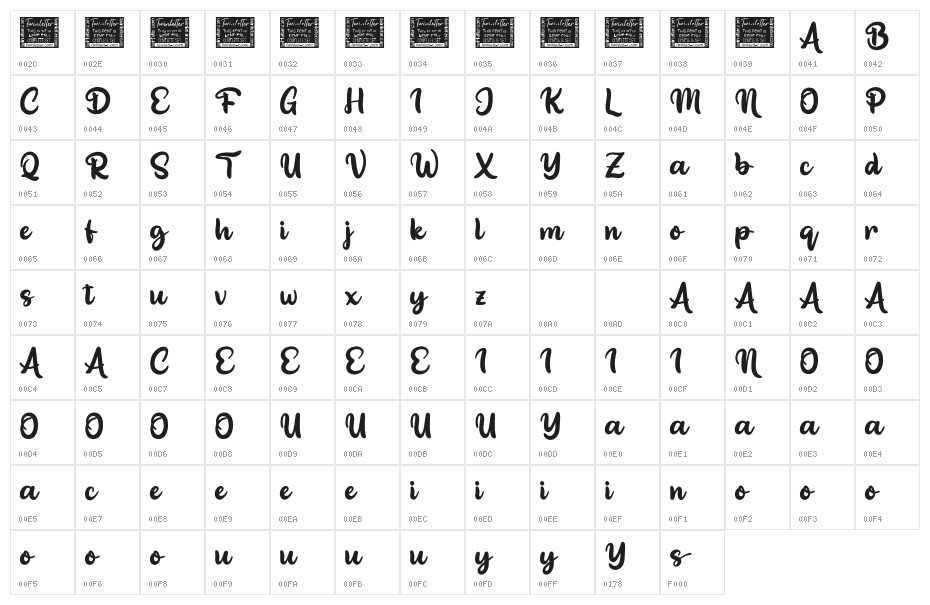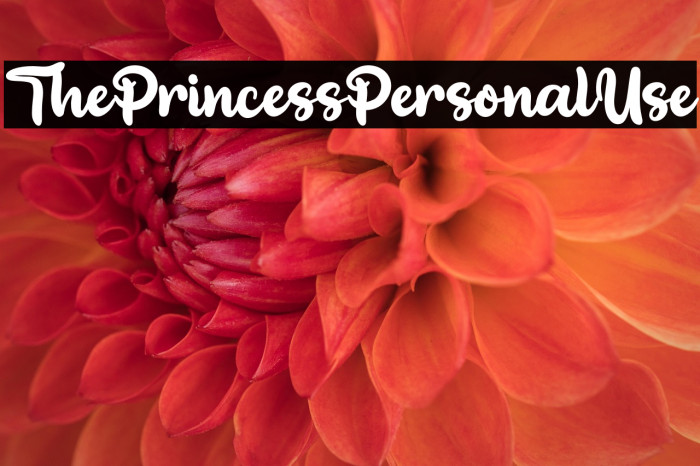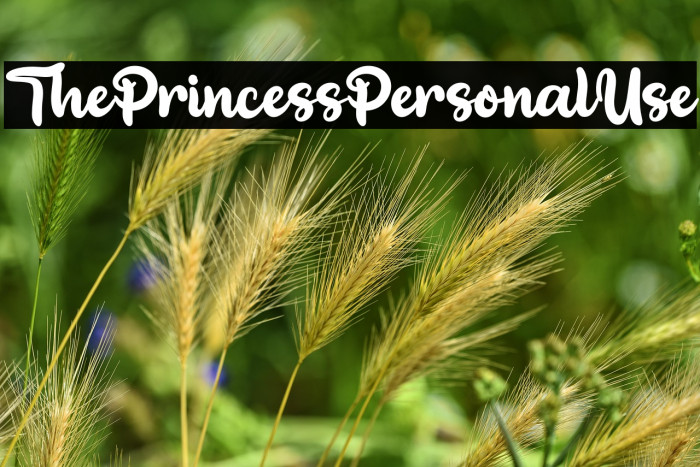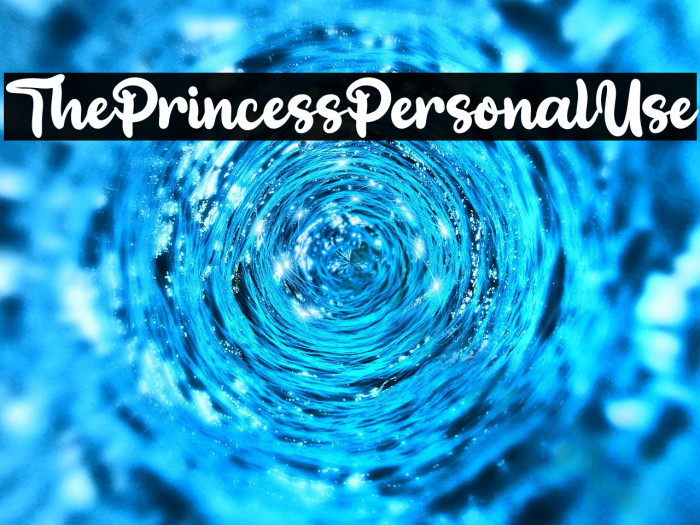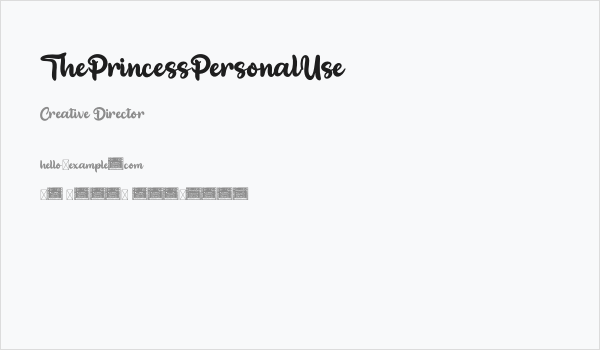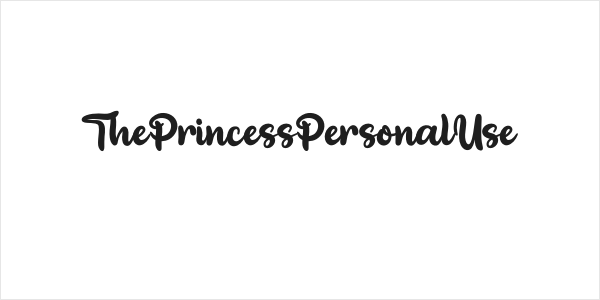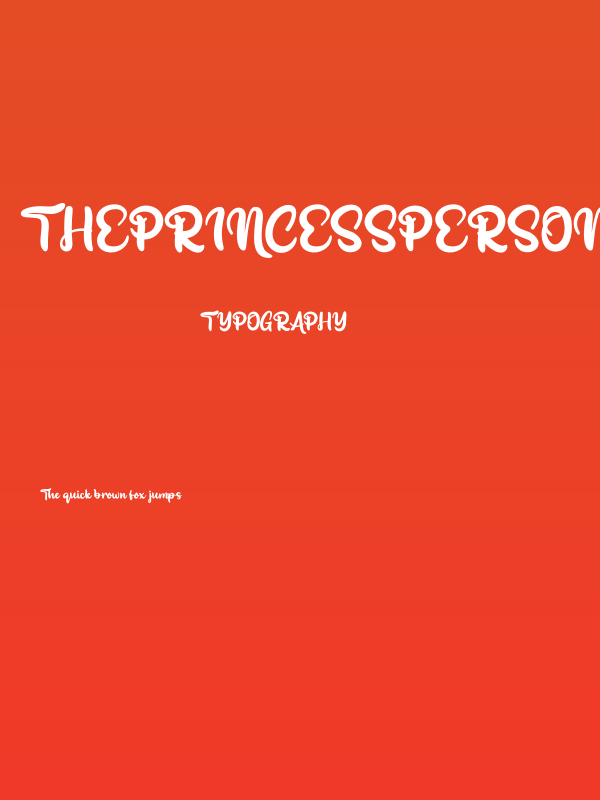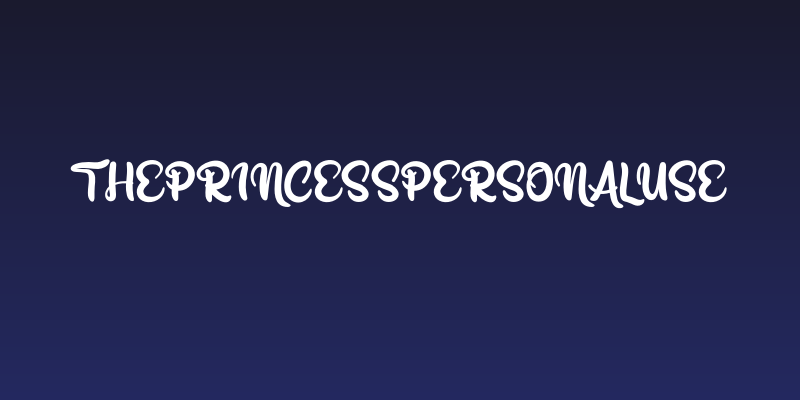
ThePrincessPersonalUse Font
ThePrincessPersonalUse Description
This font features a bold and flowing script style, characterized by its smooth, cursive letterforms that exude elegance and fluidity. The uppercase letters are slightly more structured, maintaining a balance between formality and artistic flair, while the lowercase letters are more freeform, with playful loops and swashes. The font's thick strokes and rounded edges give it a friendly and approachable appearance. It's designed to capture attention with its decorative style, making it ideal for creative projects that require a personal touch. The overall look is cohesive and visually appealing, with a consistent stroke weight that adds to its charm.
| Use Case | Logos, Headlines, Invitations |
| Proposed Projects | Ideal for wedding invitations, greeting cards, branding, and logo design. |